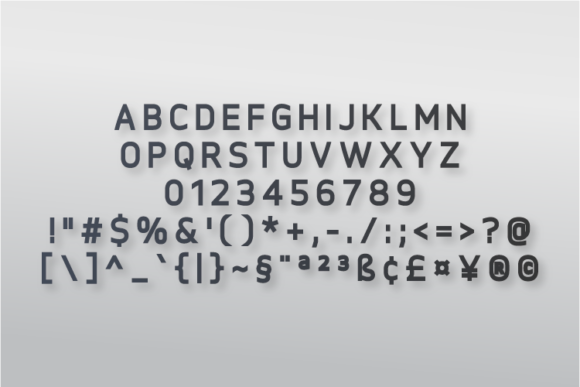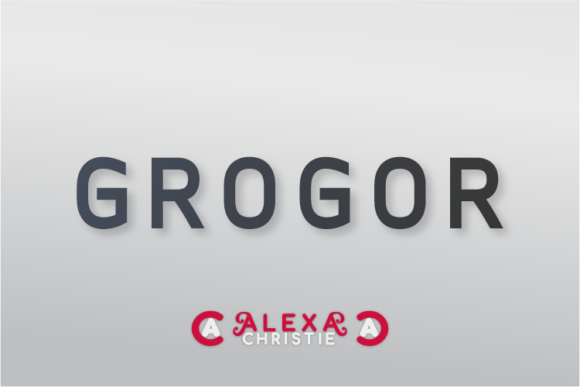
Introduction to Grogor Font
Grogor is a fancy, contemporary sans serif font.
It will complement any design need perfectly with its perfectly balanced mix of the smooth and sharp .
Key Features of Grogor Font